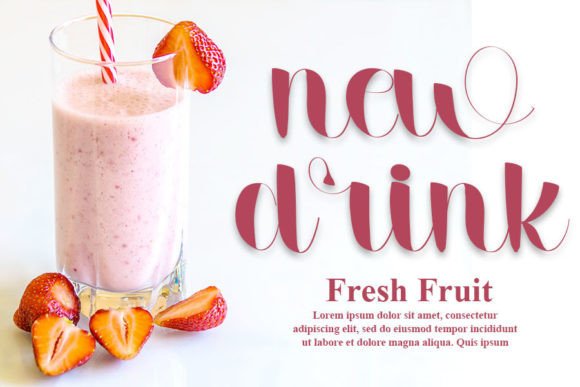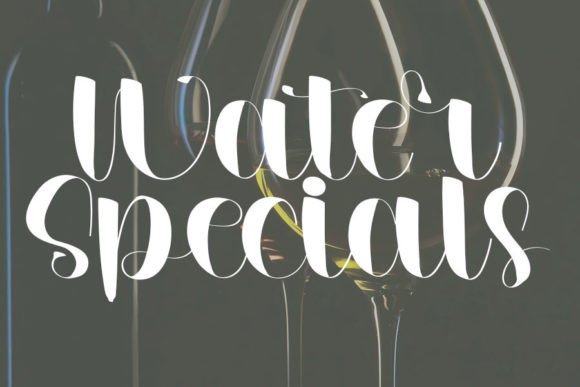
Add Classic Elegance to Your Designs with Drink Font
Drink Font is a trendy handwritten typeface that merges classic calligraphy with a fresh, modern vibe. Whether you’re creating branding materials, digital designs, or event invitations, this font provides a refined and stylish touch. Its smooth strokes and graceful curves make it stand out in every context.
Inspired by Timeless Calligraphy
At its core, Drink Font draws inspiration from traditional calligraphic lettering. However, its clean and contemporary design ensures that it fits perfectly into today’s aesthetic. It’s not overly formal, nor too casual—it strikes a perfect balance that works across a wide variety of applications.
Versatile Usage Across Creative Projects
Designers love Drink Font because it adapts effortlessly to different mediums. You can download and use it for:
Elegant wedding invitations
Brand logos and product labels
Inspirational quotes and greeting cards
Social media graphics
Website banners and headers
Thanks to its readability and natural flow, this font works great for both long-form text and short headlines.
Why Designers Choose Drink Font
Aside from its visual appeal, Drink Font also offers the following benefits:
Fully optimized for both print and digital use
Beautiful letter spacing and clean lines
Adds a premium feel to any design
If you’re seeking a font that combines charm, elegance, and versatility, then Drink Font is a great addition to your type collection. Its handwritten nature brings authenticity, while its structure keeps your designs looking polished.